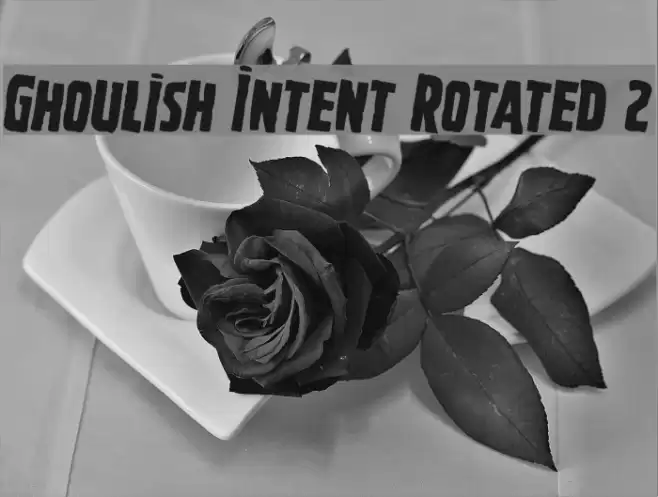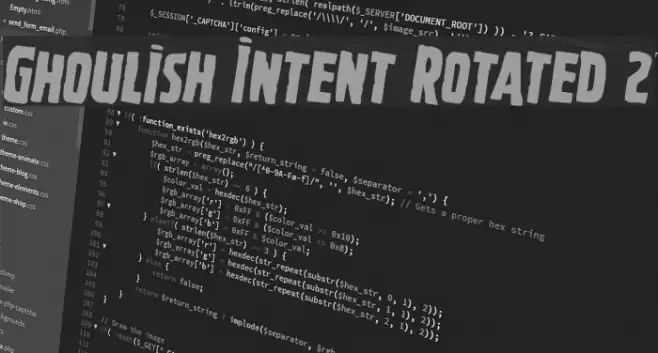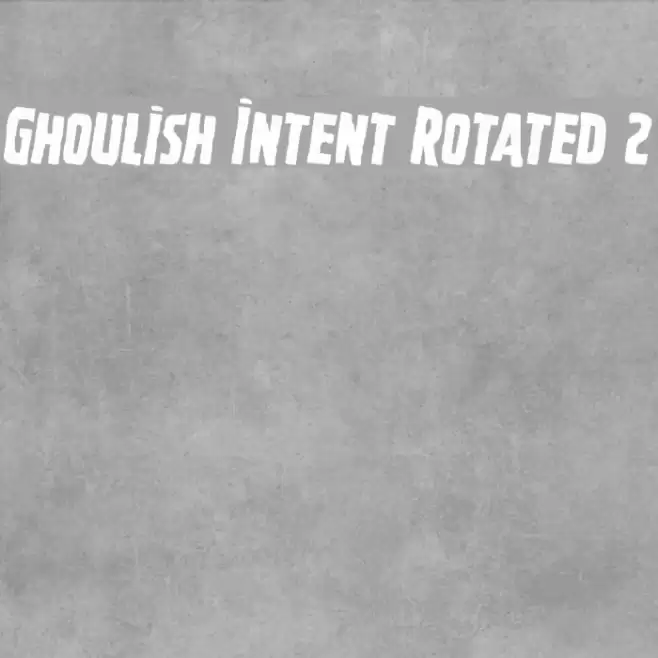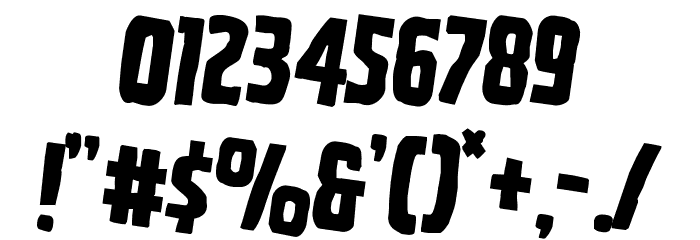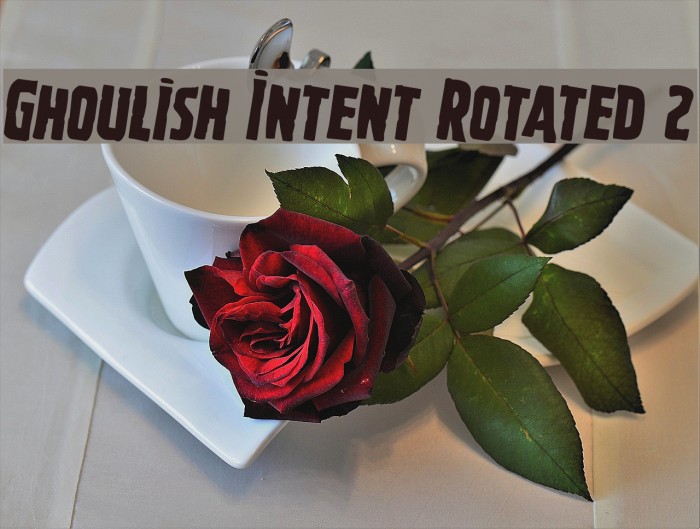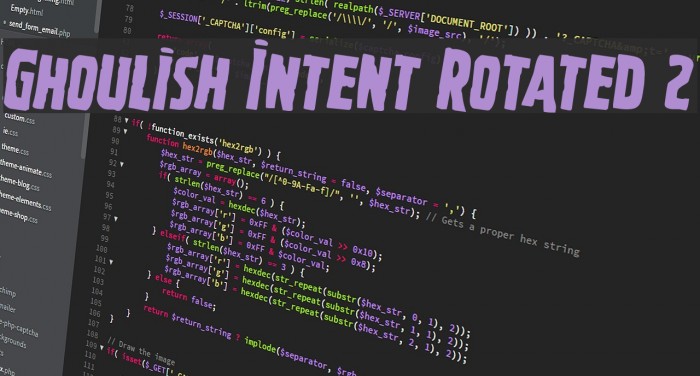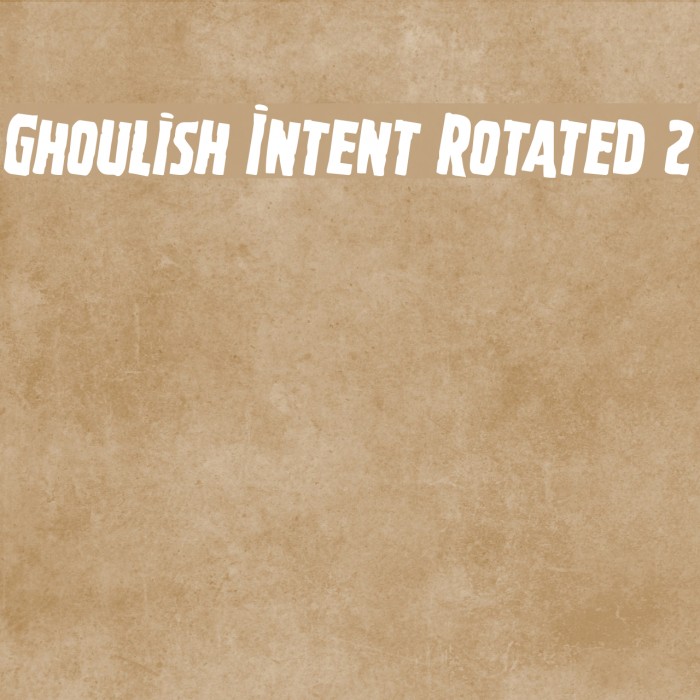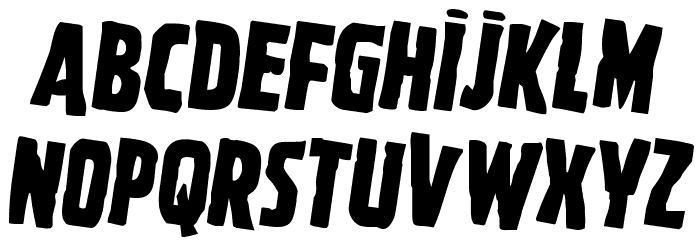
Ghoulish Intent Rotated 2 Font
Ghoulish Intent Rotated 2 Description
This font features a bold and dynamic style with a slightly irregular and playful appearance. The characters are thick and have a hand-drawn feel, giving them a unique and quirky personality. The letters are slightly tilted, adding to the energetic and whimsical vibe. This font is perfect for projects that require a fun and eye-catching design. The numbers and special characters maintain the same bold and lively style, ensuring consistency across all text elements.
A bold, playful font with a hand-drawn, quirky style from Horror fonts.
- Proposed Projects: Ideal for Halloween-themed designs, children's book covers, playful posters, and creative branding.
- Overall Style: Playful, Quirky
- Use Case: Headlines, Posters, Branding